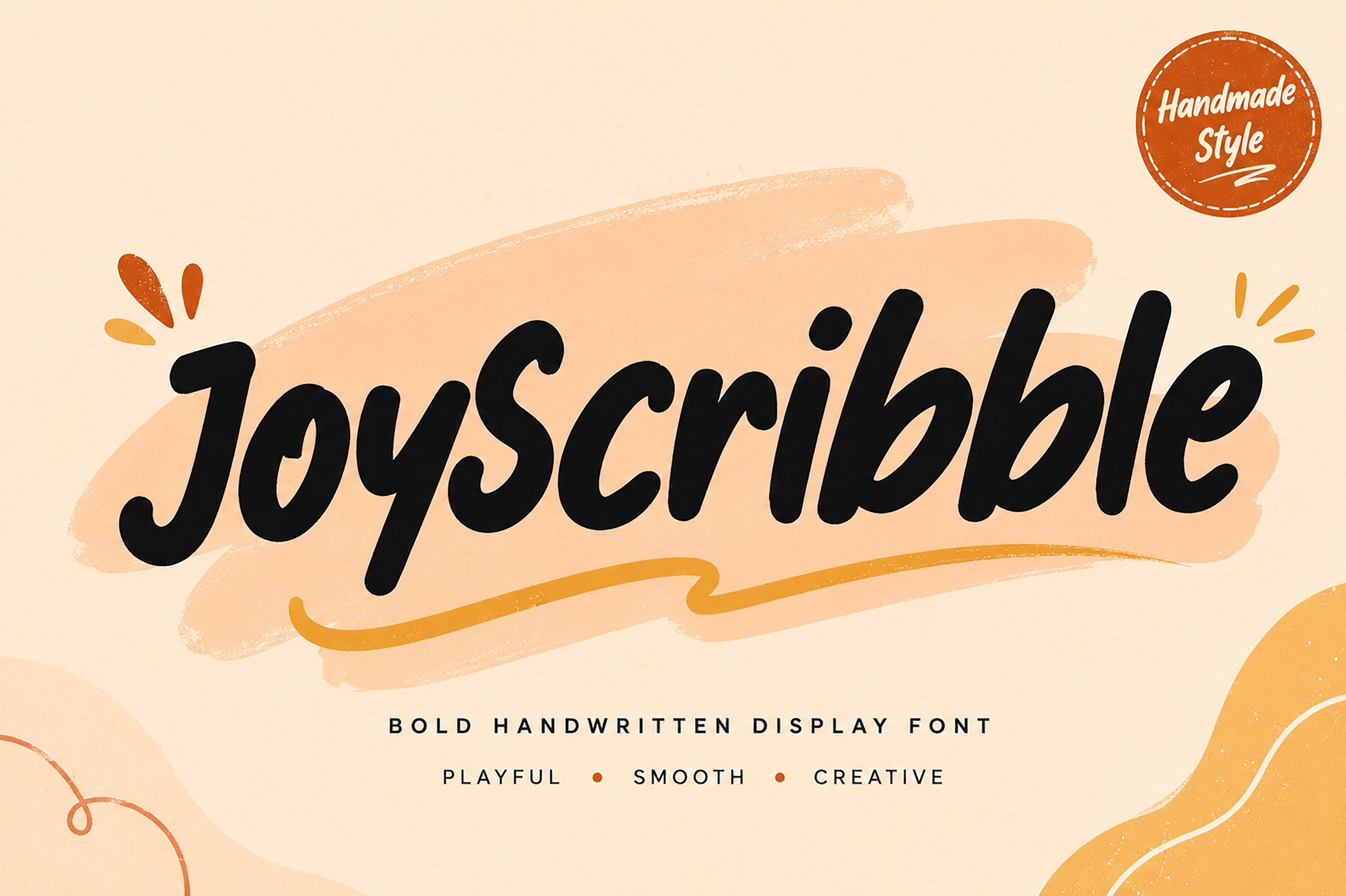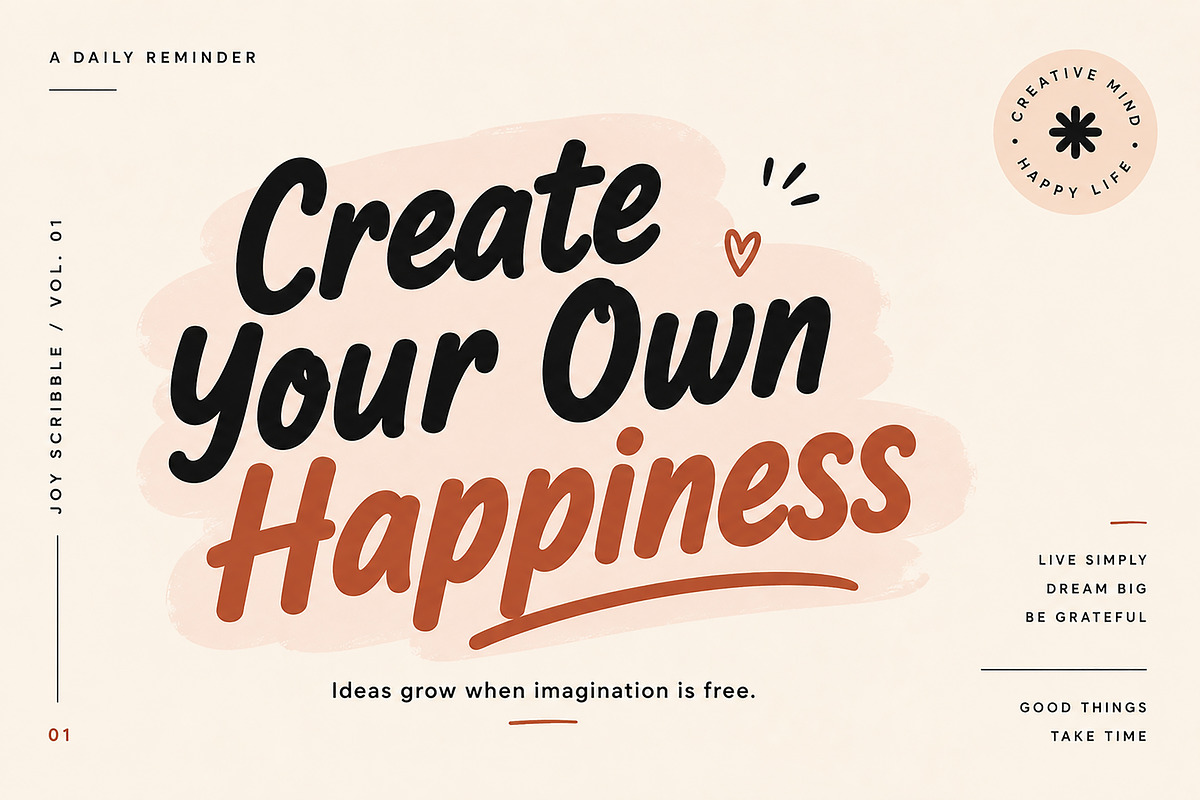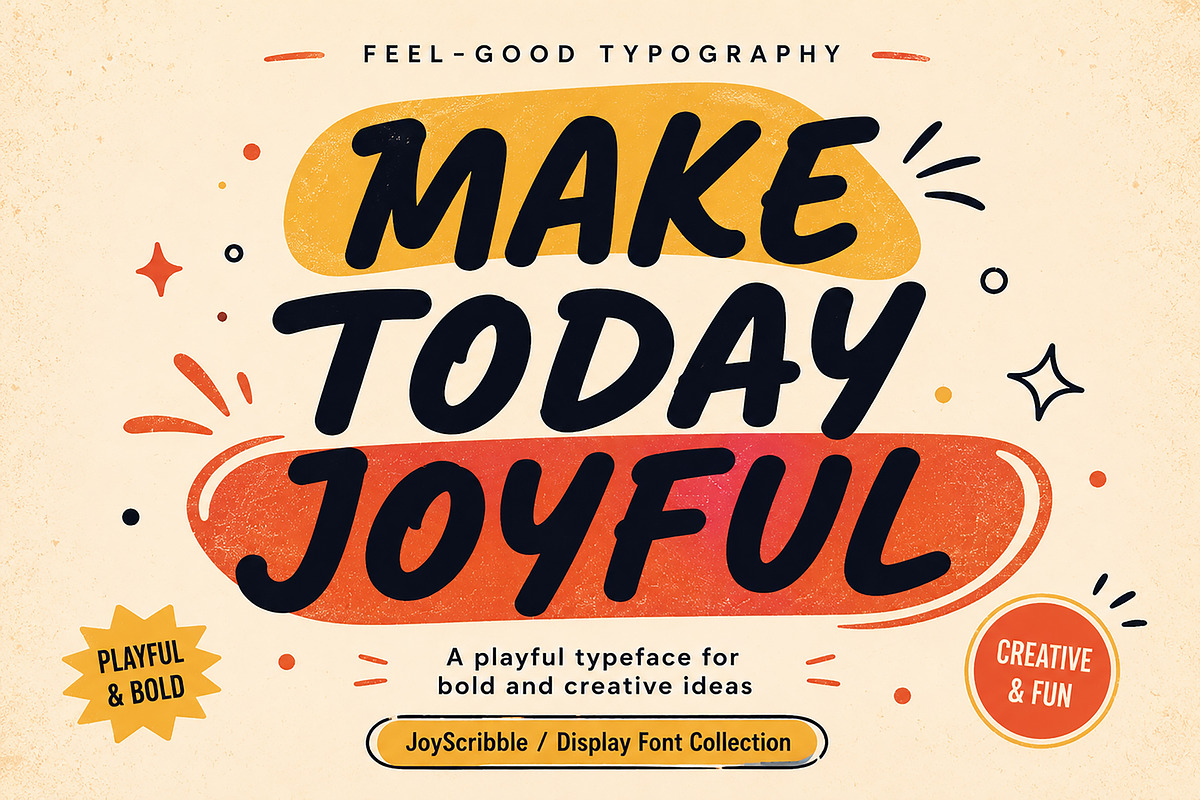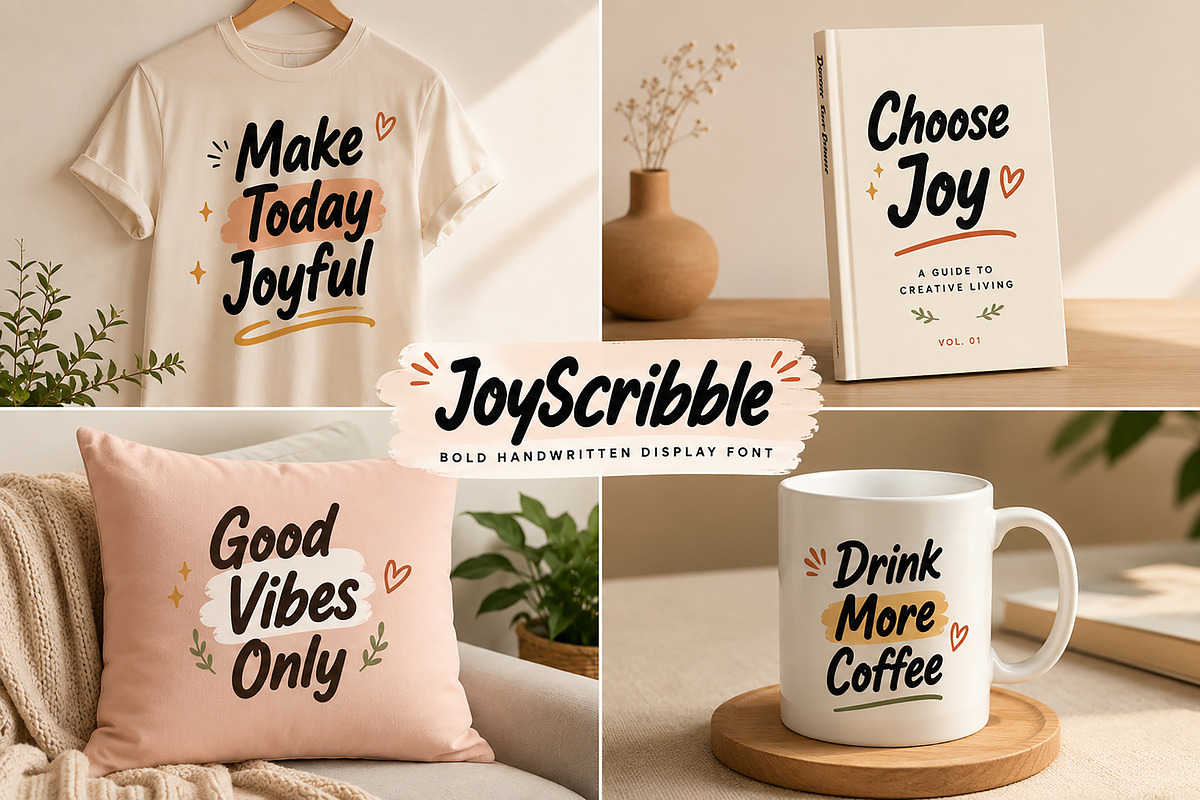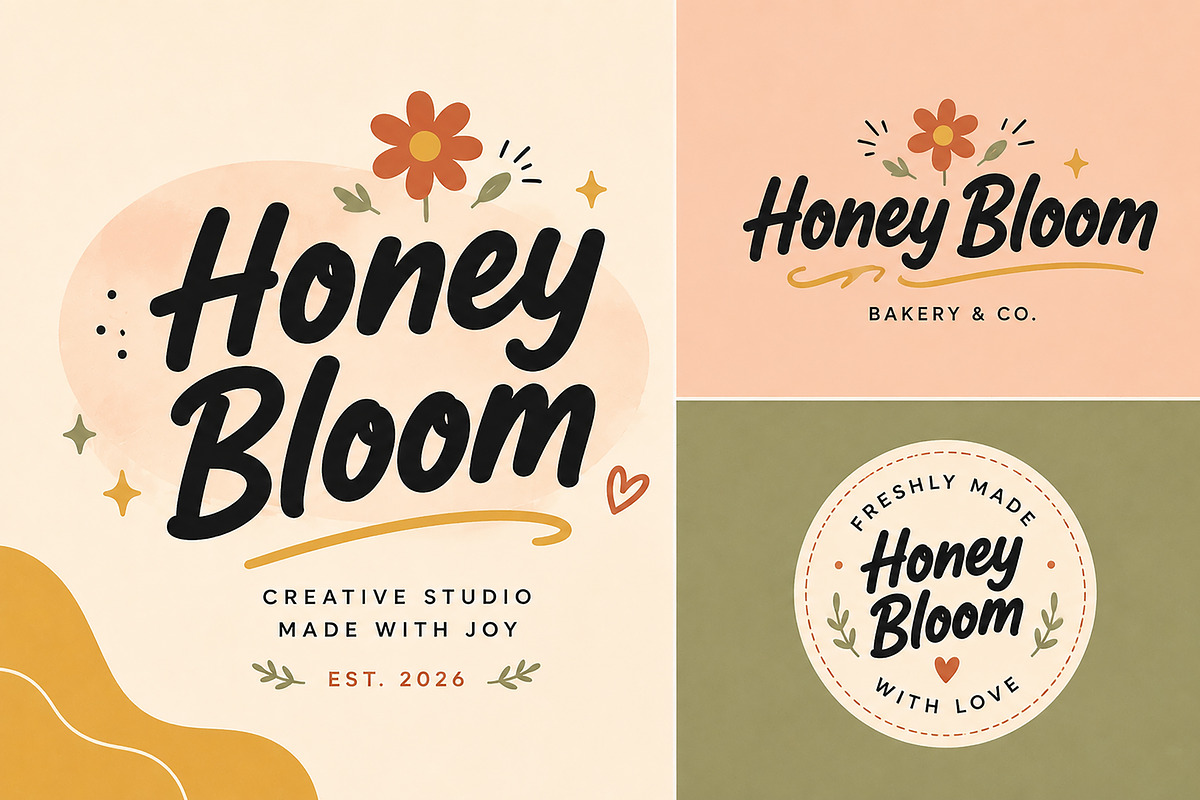
JoyScribble – Bold Handwritten Font
JoyScribble – Bold Handwritten Display Font
JoyScribble is a bold handwritten display font designed to bring warmth, creativity, and personality to your projects. With its smooth brush strokes, playful curves, and natural hand-drawn feel, this font is perfect for eye-catching headlines and cheerful branding.
Whether you're creating logos, social media graphics, posters, packaging, invitations, greeting cards, or creative branding, JoyScribble delivers a fun yet professional look that instantly grabs attention.
Its bold appearance makes it easy to read while maintaining an authentic handwritten style, making it a versatile choice for both personal and commercial design projects.
Branding & Visual Identity
Posters & Flyers
Quotes & Typography
Stickers
Greeting Cards
Invitations
T-Shirt Designs
Mug & Merchandise
Children's Products
Café & Bakery Branding
YouTube Thumbnails
Creative Advertising
Bold Handwritten Style
Smooth Brush Strokes
Clean & Readable
Playful & Friendly
Perfect for Display Typography